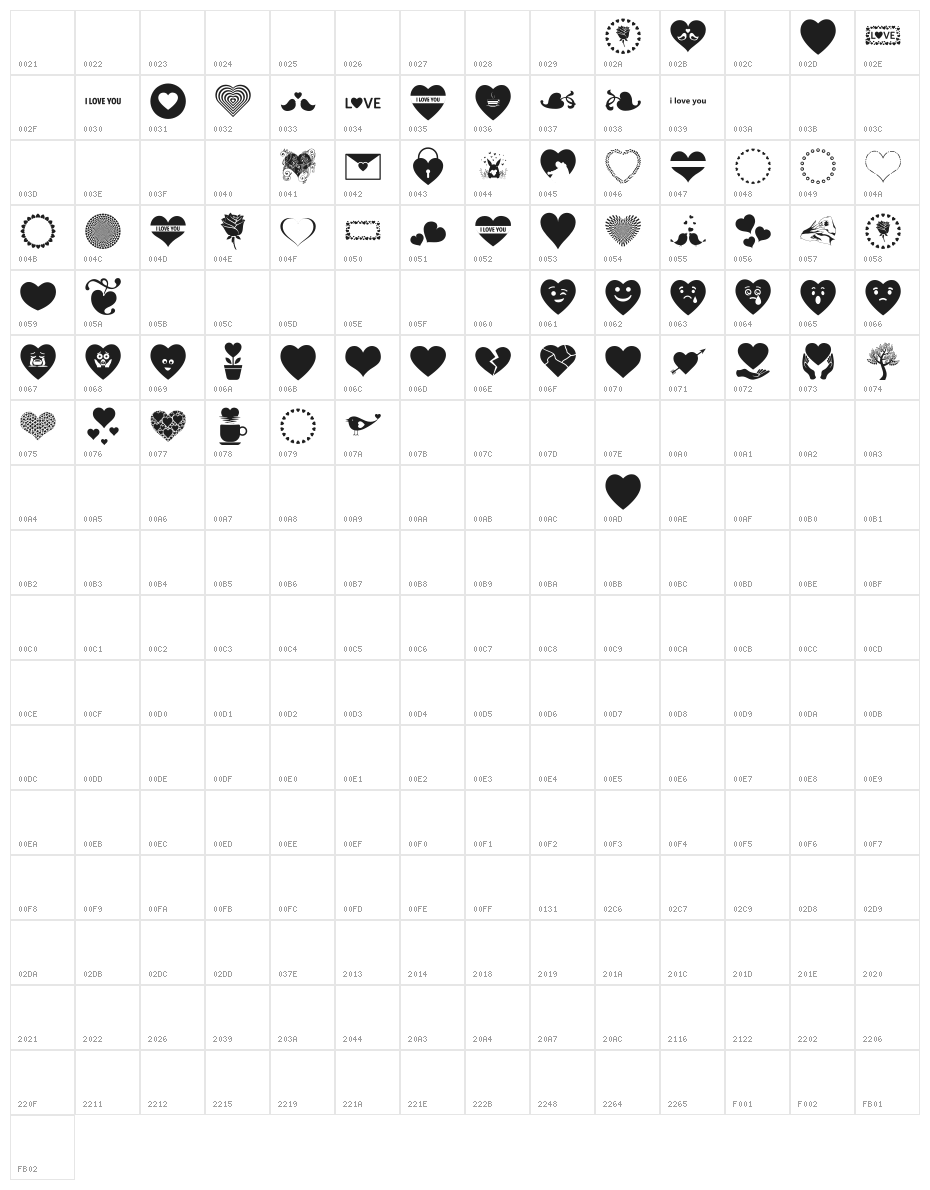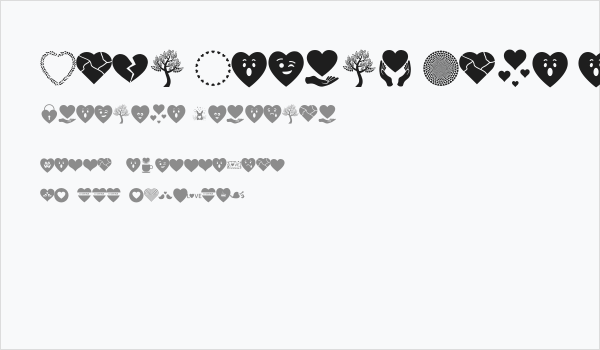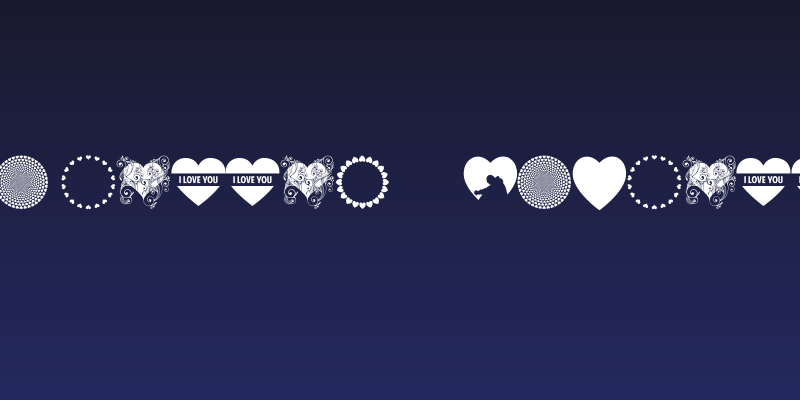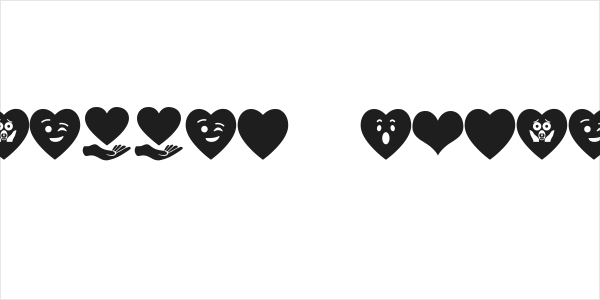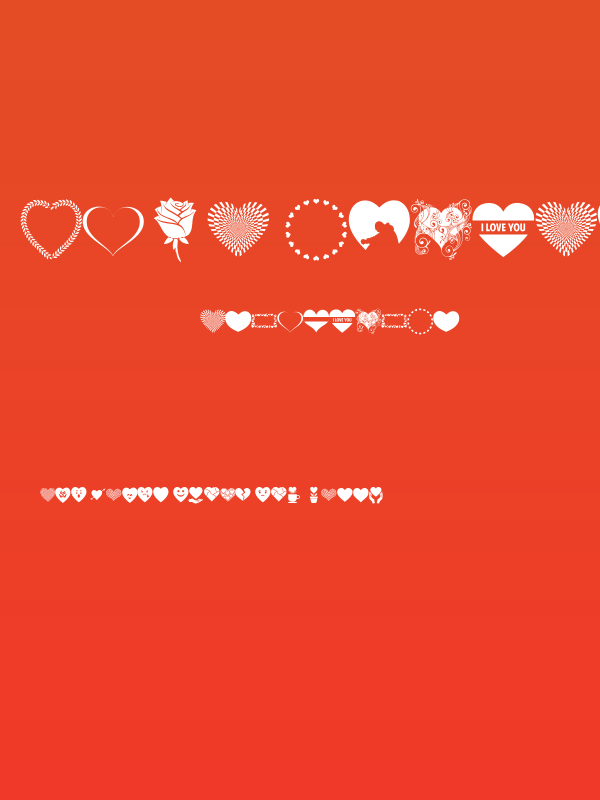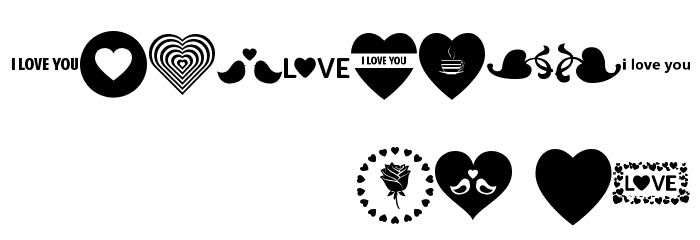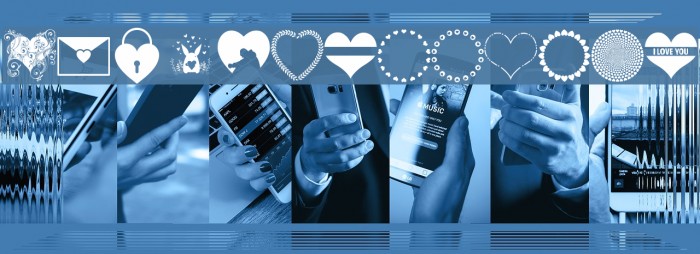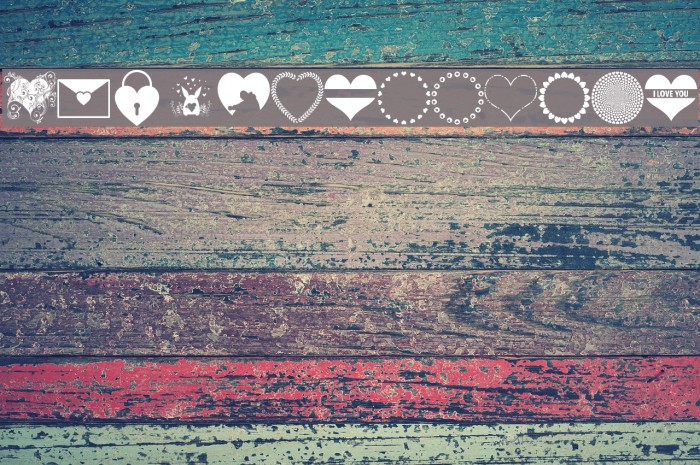
Font Hearts Love el harrak © el-harrak.blogspot.com Description
This collection features a variety of heart-themed symbols and designs, each conveying a sense of love and affection. The designs range from simple heart shapes to more intricate patterns incorporating flowers, locks, and emotive faces. Some symbols include text elements like 'I LOVE YOU' and 'LOVE', enhancing their romantic appeal. The overall style is decorative and playful, making it suitable for projects that aim to express love and warmth. The symbols are bold and visually striking, with a consistent black fill that ensures they stand out against any background.
| Use Case | Logos, Decorative elements, Greeting cards |
| Proposed Projects | Ideal for Valentine's Day cards, wedding invitations, romantic graphic designs, and love-themed merchandise. |